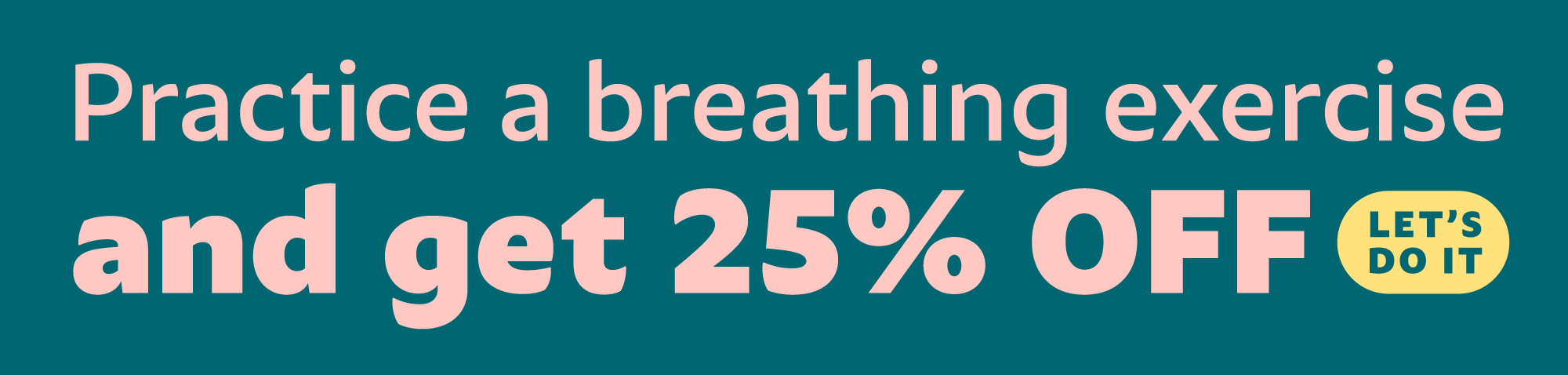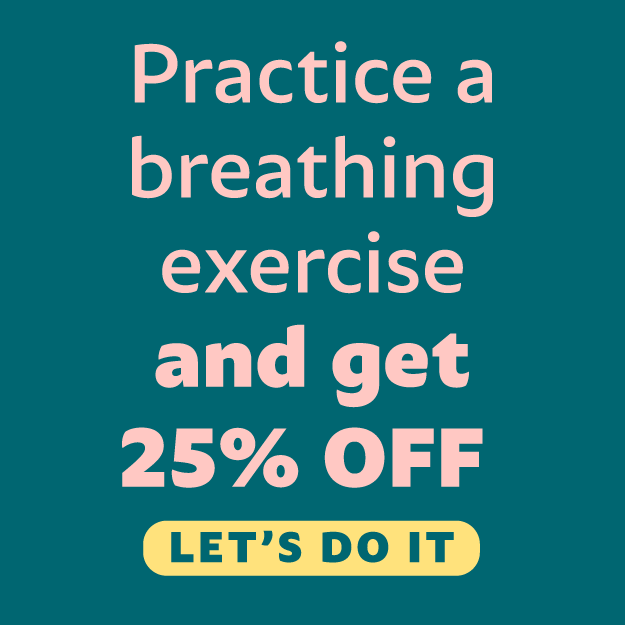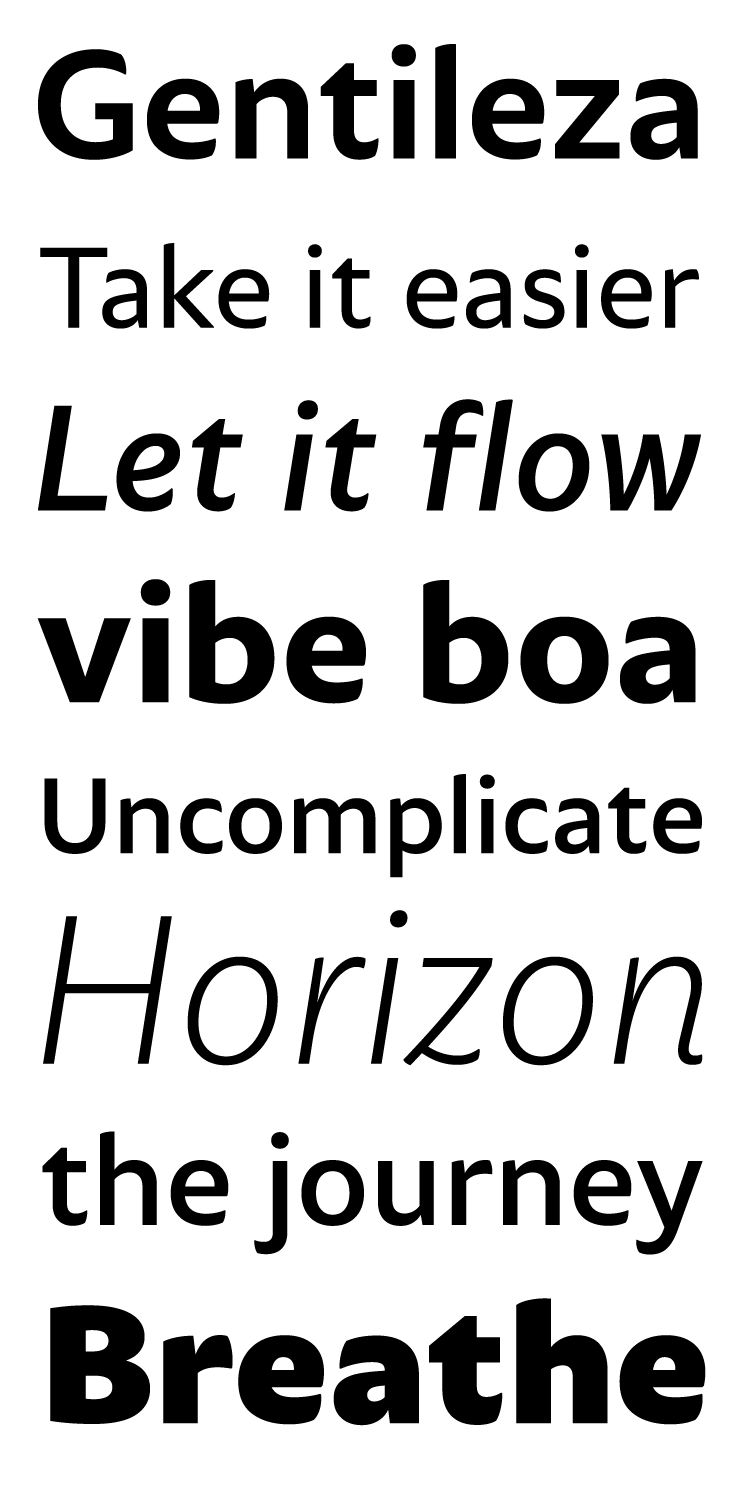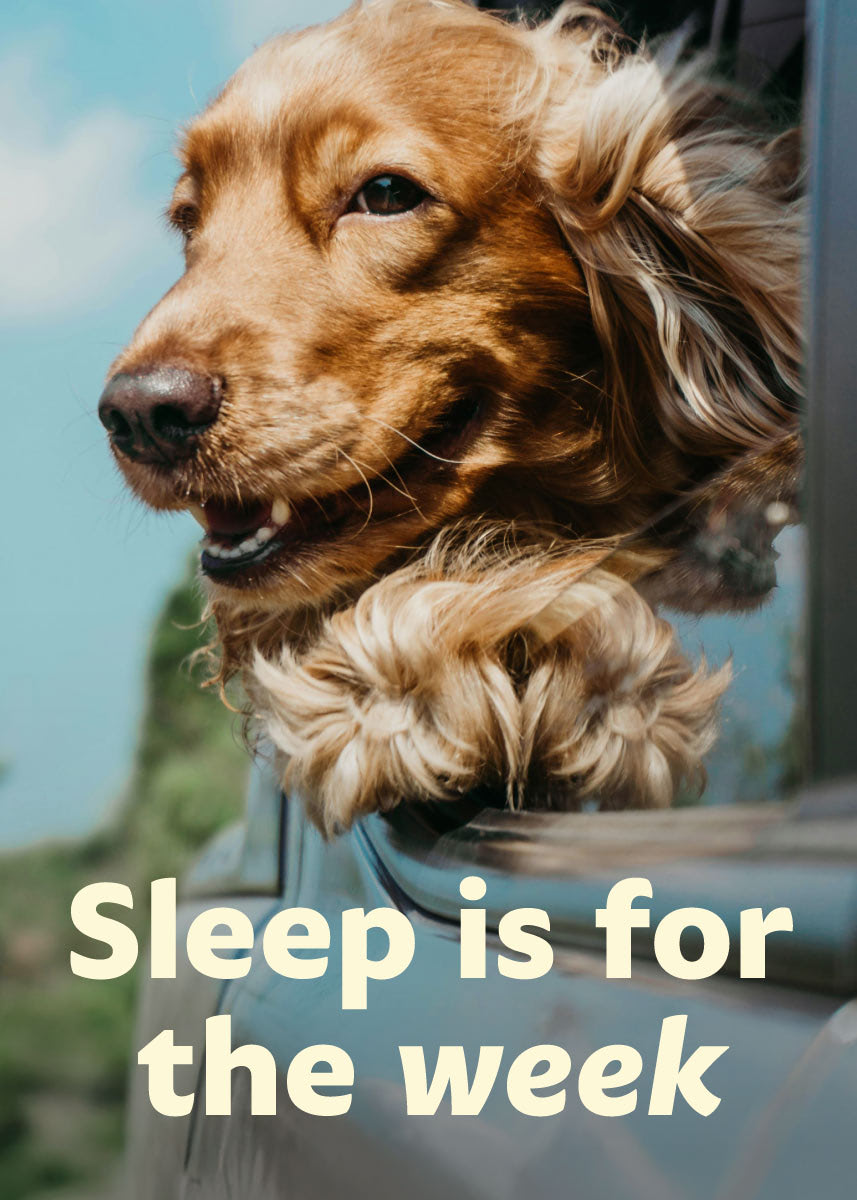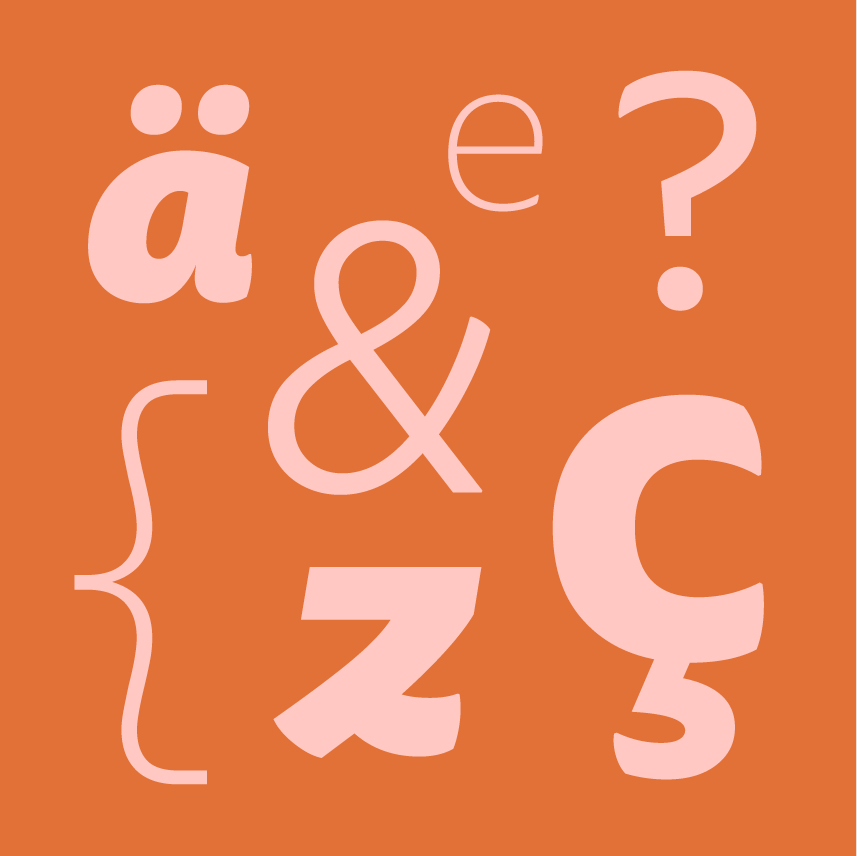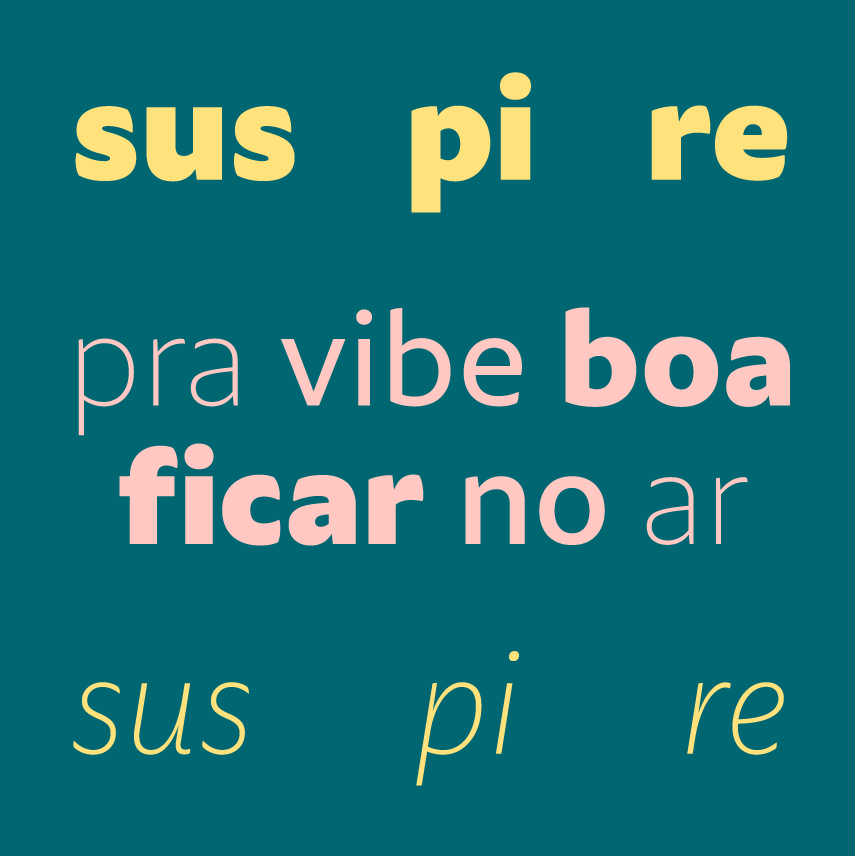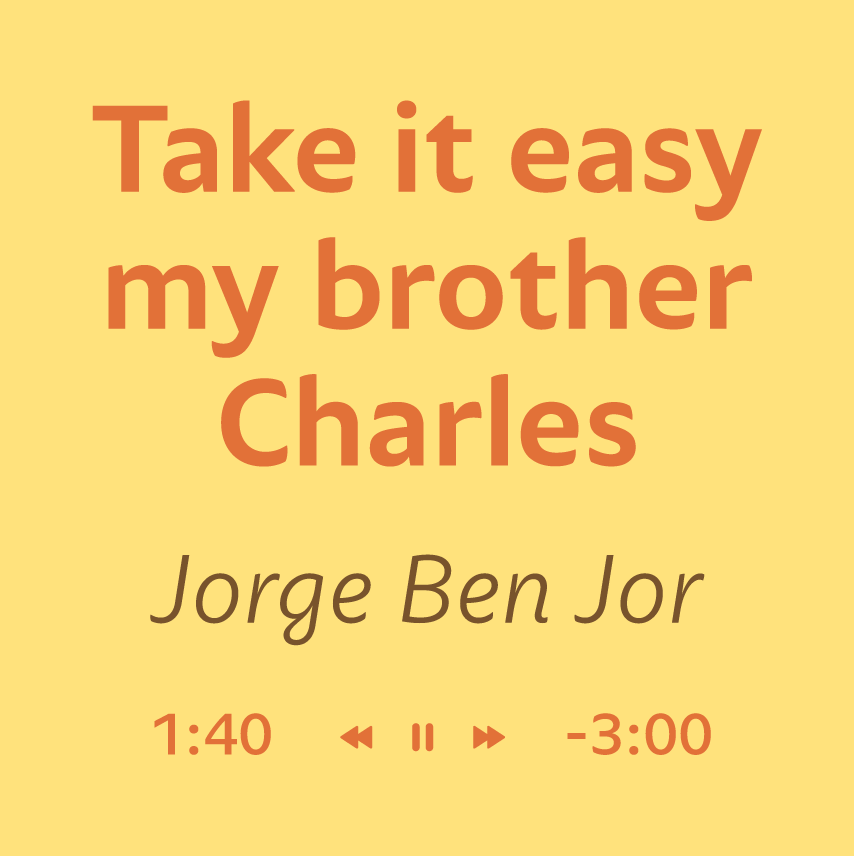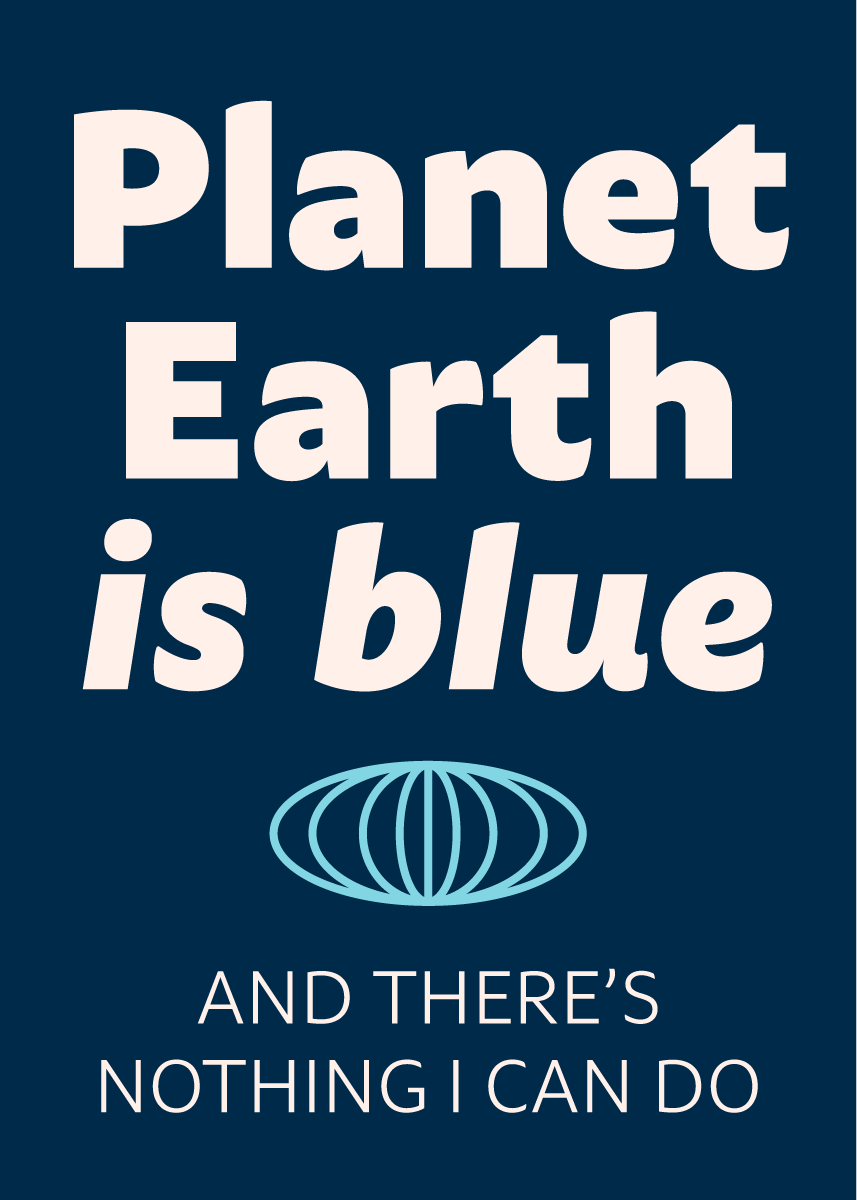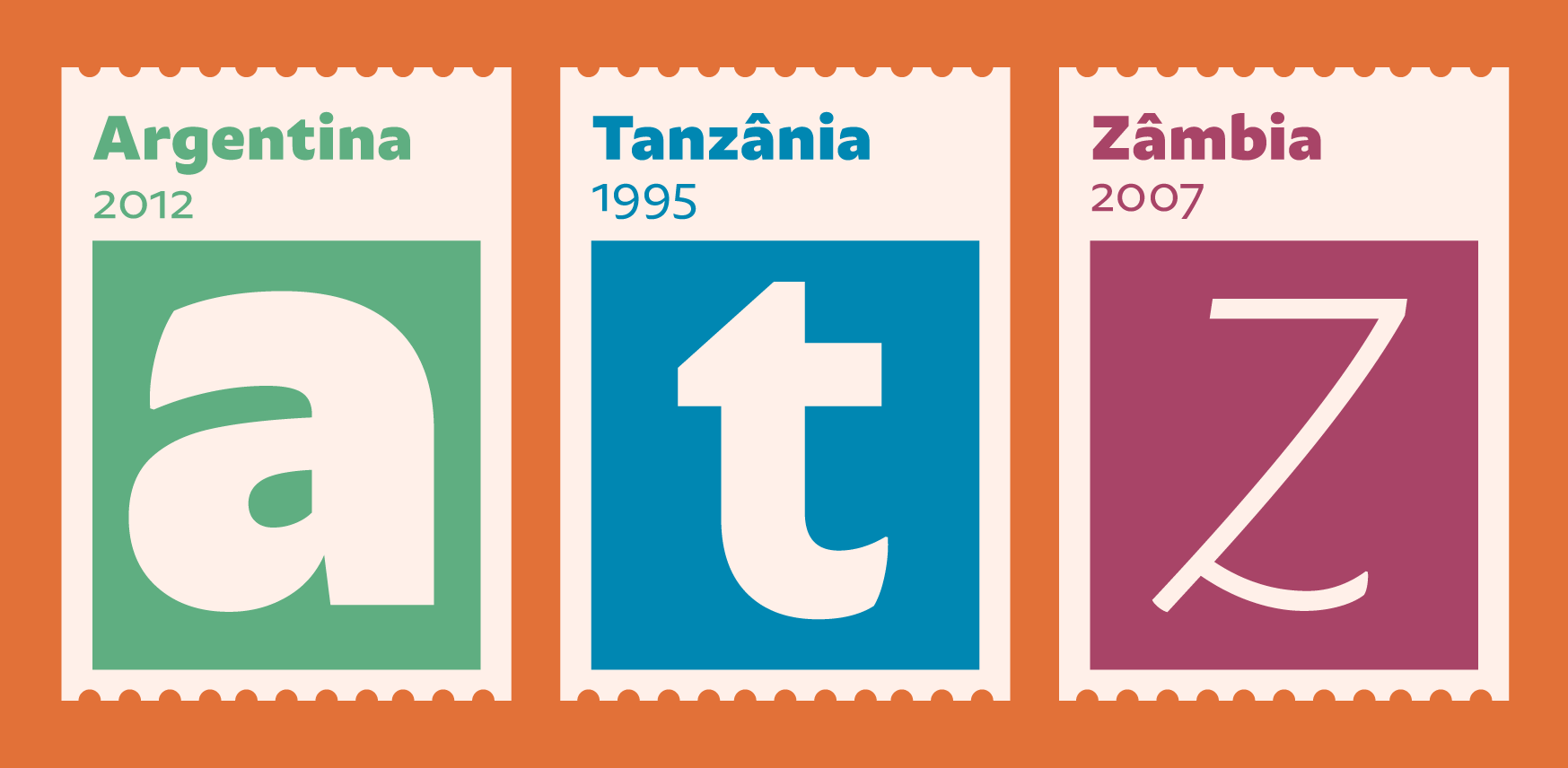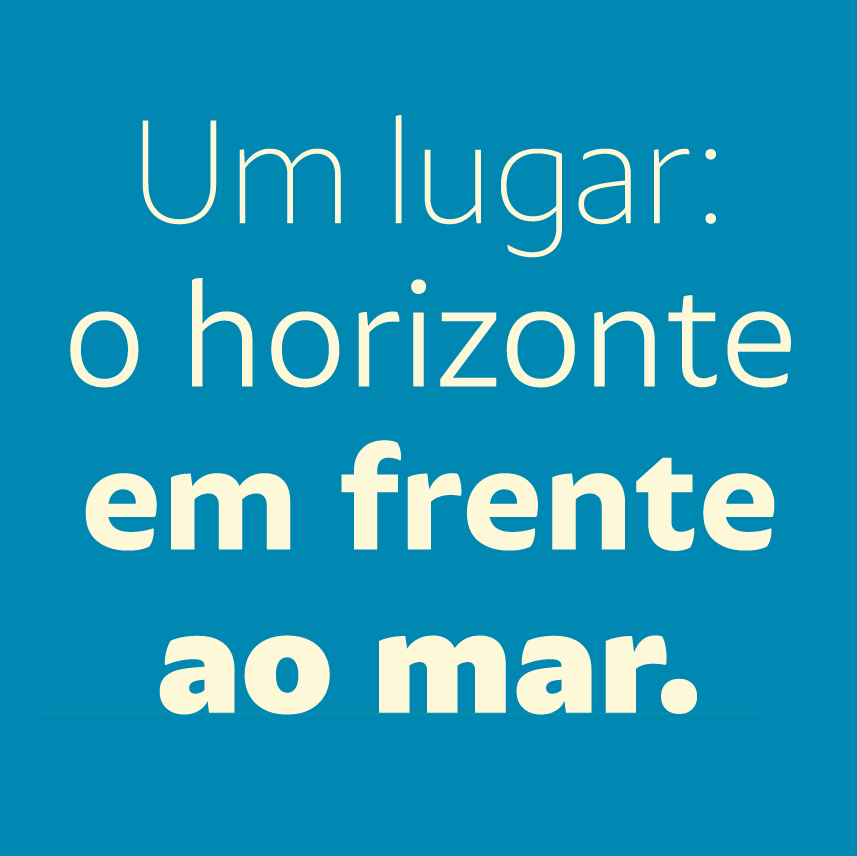
Suspire
A typeface that carries a gentle reminder
We can take it easier
Like a river, let it flow
Gente boa, vibe boa
Made to dream, converse, uncomplicate
If Suspire was a place
The horizon in front of the sea
É como brisa leve que chega de mansinho
It’s about the journey
Henrique Beier
Supports 209 languages based on the Latin script.
Sus pi re (‘Sigh’ in Portuguese). A typeface that carries a gentle reminder: we can take it easier.
Suspire has the balance that brings people closer: the humanist style, on a sans-serif base. To bring comfort even in small letterforms. The warm terminals, from calligraphic gestures. To converse with the lightness of the hand that writes in a beautiful fit to shine.
Some letters have stylistic variations, to show the personality of someone who invites everyone to conversation. Suspire doesn’t shout, but if you stop to look, it has presence. Its curved details give an air of grace as the weight and size increase. It’s like a gentle breeze that arrives softly, but without going unnoticed.
Suspire is like us. Made to dream, converse, uncomplicate. It’s meant to be like humans are: creative, empathetic, real. Because being human, in fact, is stopping to sigh.
Ah. That happy sigh we give when we find the type that matches the project’s vibe. A type that reminds us how good it is to let go. Suspire. So the good vibes stay in the air.